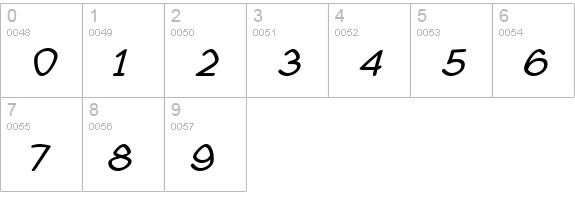
KampFriendship BoldItalic Font Details
Introducing KampFriendship BoldItalic, a captivating and dynamic font that exudes a bold and daring personality. This unique typeface effortlessly combines the elegance of bold strokes with the playful touch of italic letterforms, creating a visually striking design that commands attention. KampFriendship BoldItalic is the perfect choice for those who want to make a statement with their designs. Whether you're designing a logo, creating eye-catching headlines, or adding a touch of flair to your branding materials, this font is sure to leave a lasting impression. With its distinct character and versatility, KampFriendship BoldItalic offers endless creative possibilities. Its bold and italic nature adds a sense of drama and excitement to any project, making it ideal for advertisements, posters, packaging, and more. Let your imagination run wild and watch as this font brings your ideas to life. The best part? KampFriendship BoldItalic is freely available to download at FontsMarket.com. That's right, you can get your hands on this stunning font without spending a dime. Whether you're a professional designer or a passionate enthusiast, this font is accessible to all, allowing you to enhance your creations without breaking the bank. So why wait? Elevate your designs with the captivating charm of KampFriendship BoldItalic. Download it now from FontsMarket.com and unlock the power of this remarkable font. Let your creativity soar and make a bold statement that will leave a lasting impression on your audience.